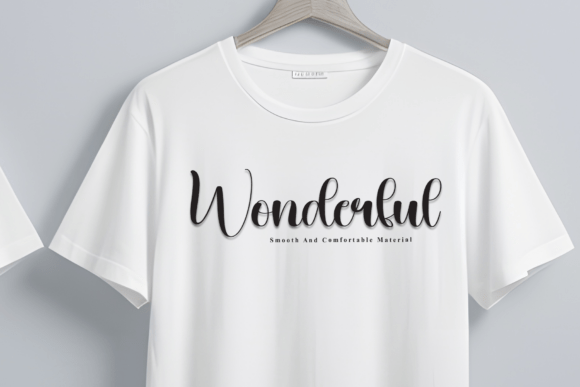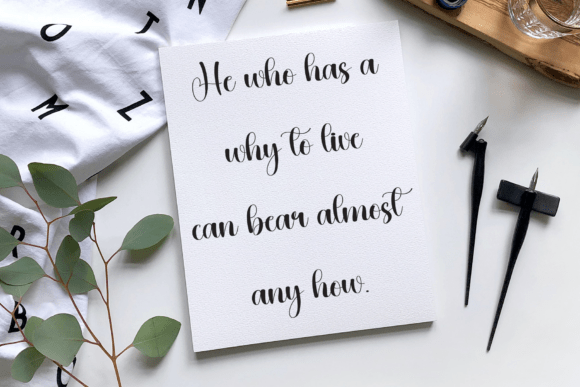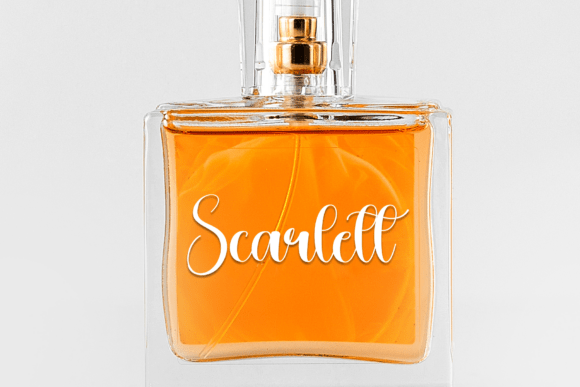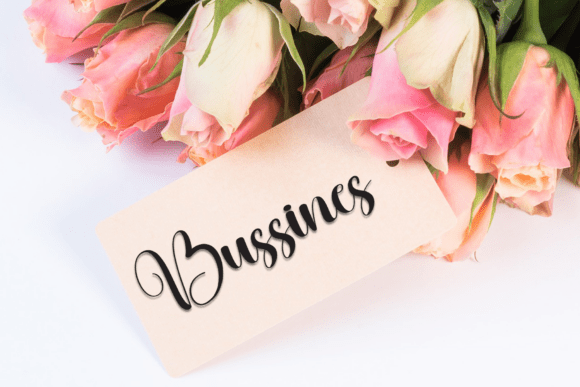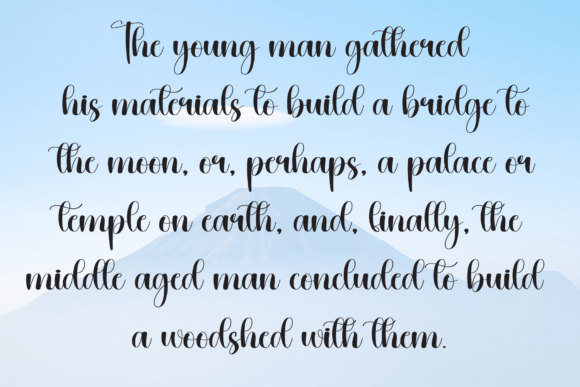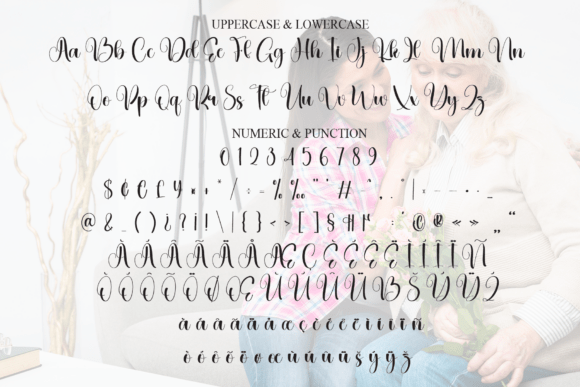
Auntie Font: Elevate Your Designs with Elegance and Sophistication
In the world of typography, fonts play a crucial role in conveying the tone and personality of a design. For those seeking a stylish and sophisticated touch, Auntie Font is an excellent choice. This beautiful script handwritten font boasts elegant curves and a natural flow, making it perfect for a wide range of design applications.
The Characteristics of Auntie Font
Auntie Font is a meticulously crafted script font that exudes warmth and creativity. Its elegant curves and natural flow give it a personal and sophisticated feel, suitable for both formal and casual designs. The font’s unique characteristics make it an excellent choice for designers and crafters looking to add a touch of charm to their work.
Perfect for Branding and Invitations
Branding and invitations are two areas where Auntie Font truly shines. Its elegant and sophisticated feel makes it perfect for creating stunning logos, business cards, and letterheads. For wedding invitations, Auntie Font adds a touch of romance and whimsy, making it an excellent choice for couples looking to make their special day even more memorable.
Auntie Font’s versatility is one of its most significant advantages. It can be used for a wide range of design applications, including:
- Wedding Invitations: Add a touch of romance and elegance to your wedding invitations, save-the-date cards, and thank-you notes.
- Branding: Create stunning logos, business cards, and letterheads that reflect your brand’s personality and values.
- Greeting Cards: Design beautiful greeting cards for special occasions, such as birthdays, anniversaries, and holidays.
- Social Media Posts: Elevate your social media posts with elegant and sophisticated typography, perfect for making a lasting impression.
Why Choose Auntie Font?
With so many fonts available, why choose Auntie Font? Here are a few compelling reasons:
- Elegance and Sophistication: Auntie Font adds a touch of elegance and sophistication to any design, making it perfect for formal and casual applications.
- Unique and Creative: The font’s unique curves and natural flow make it stand out from more traditional fonts, adding a creative touch to your designs.
- Easy to Read: Despite its elegant feel, Auntie Font is easy to read, making it perfect for body text and captions.
- Highly Versatile: Auntie Font can be used for a wide range of design applications, from branding and invitations to greeting cards and social media posts.
Tips for Using Auntie Font
To get the most out of Auntie Font, here are a few tips to keep in mind:
- Pair with Neutral Colors: Auntie Font pairs beautifully with neutral colors, such as black, white, and gray. Experiment with different color combinations to find the perfect fit for your design.
- Experiment with Font Sizes: Auntie Font looks stunning in a variety of font sizes. Experiment with different sizes to find the perfect fit for your design.
- Add Decorative Elements: Consider adding decorative elements, such as illustrations or graphics, to enhance the overall look and feel of your design.
In conclusion, Auntie Font is a beautiful and versatile script handwritten font that adds a touch of elegance and sophistication to any design. Its unique curves and natural flow make it perfect for a wide range of design applications, from branding and invitations to greeting cards and social media posts. Whether you’re a designer or crafter, Auntie Font is an excellent choice for those seeking to elevate their designs with warmth and creativity.